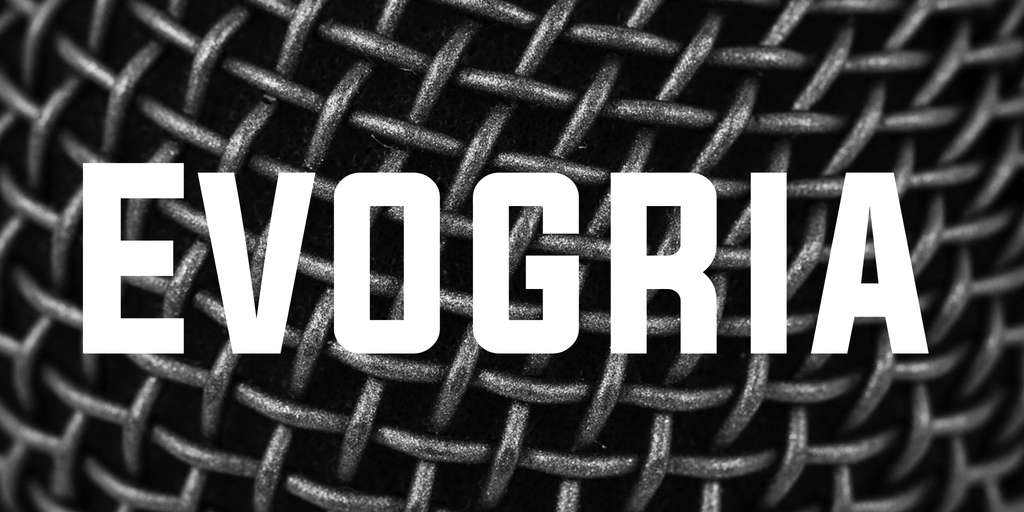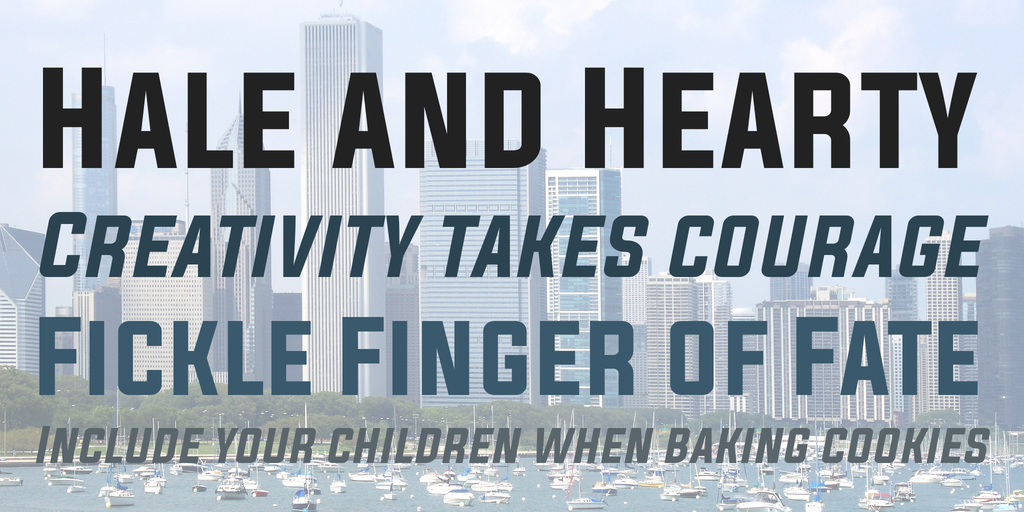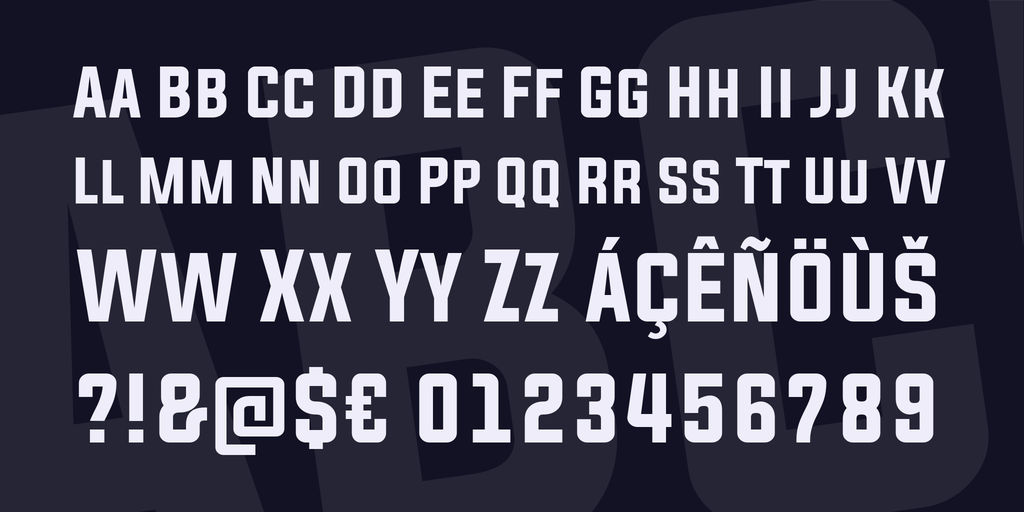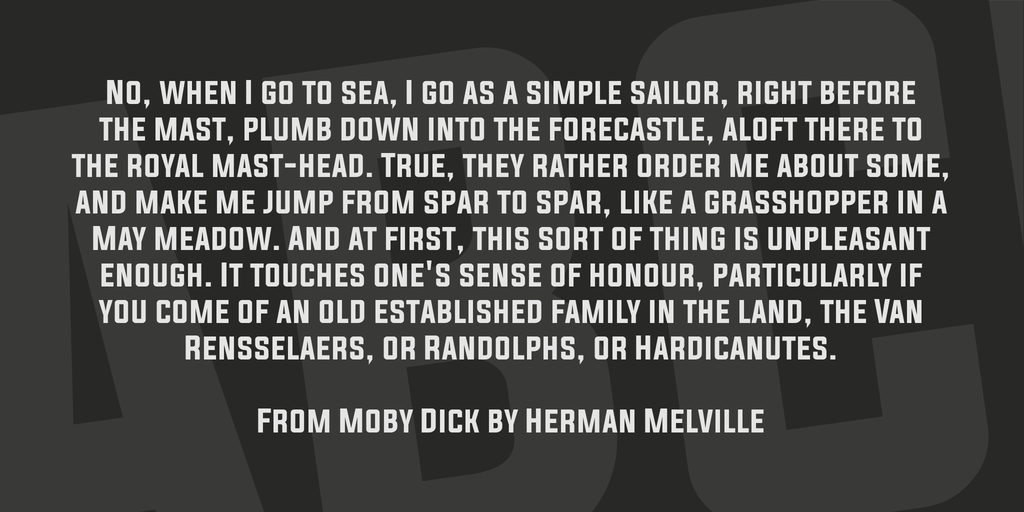
Evogria Font: A Bold & Modern Display Font for Logo Design
About the Evogria Font
The Evogria Font is here to transform your projects with its distinctive character and style. Evogria is a font created by Situjuh Nazara.
Evogria’s strong, geometric forms make it ideal for headlines, logos, and short, impactful branding statements. It projects a modern and confident personality, working well on posters and packaging where bold statements are needed. However, its condensed nature and heavier weight make it less suitable for body text or long paragraphs; legibility suffers at smaller sizes.
For effective pairings, consider pairing Evogria with a clean sans-serif like Open Sans for body copy to maintain readability, or a delicate script font like Great Vibes for a touch of elegance in secondary text elements. A warmer, slightly more rounded sans-serif, such as Lato, could also provide a good contrast while maintaining a contemporary feel.
Evogria’s overall personality is bold and modern, conveying a sense of sophistication and innovation. It is best suited for brands that aim for a strong visual identity and want to communicate confidence and authority.
Evogria Font Usage Examples
Evogria Font Example